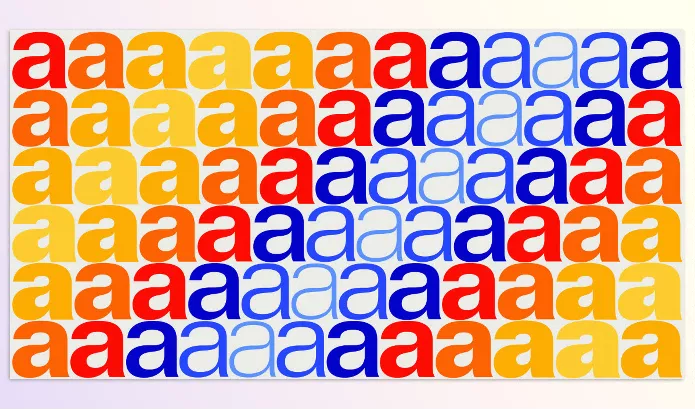
Exat Font Family is created to be flexible to the needs of the audience, enabling them to use the type in a multitude of ways, ranging from foreground headlines to detailed paragraphs. This family of type fonts exemplifies the Croatian artistic and architectural spirit that sought new notions and ideas of design in the form of abstraction.
Hot Type – Exat Font Family Features
• Helvetica inspired modernist fonts with geometry
• Different weight options available
• Defined structures and edges
• Optimal legibility due to appropriately balanced contrast
• Works well for body text and titles
• Capacity for strong hierarchy of type
• Drawing inspiration from Total Design and the EXAT 51 group
Image 1: A seamless blend of form and function, inspired by pioneering architectural movements.
Exat Font Family - A seamless blend of form and function, inspired by pioneering architectural movements.